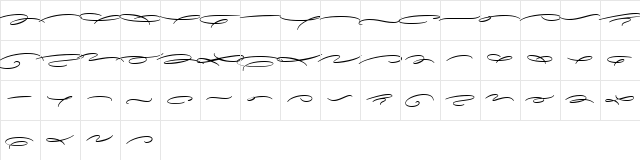
Avelana Deco Medi PERSONAL USE Regular
| Foundry | Mans Greback |
| Designer | Mans Greback |
Design Context for Avelana Deco Medi PERSONAL USE Typeface
Avelana Deco Medi PERSONAL USE is a composed and adaptable typeface that performs quietly and consistently across a wide range of design contexts.